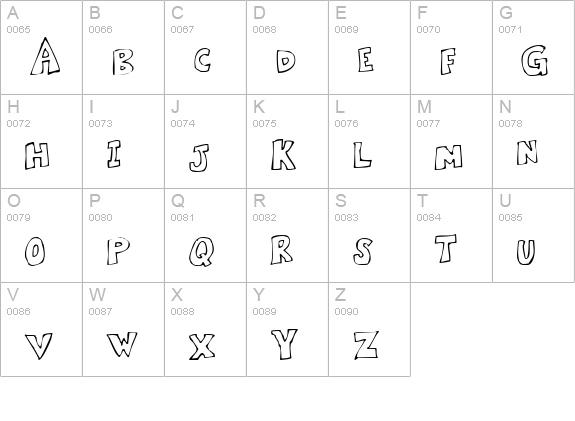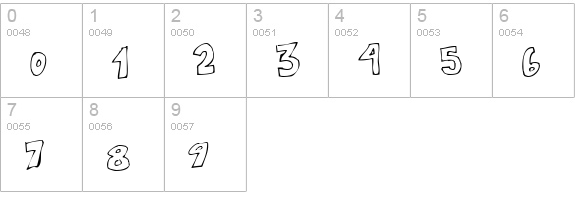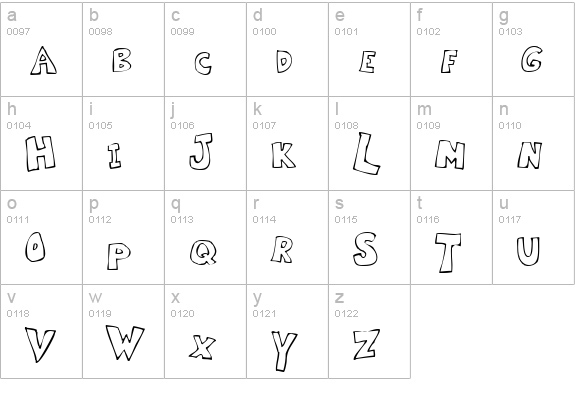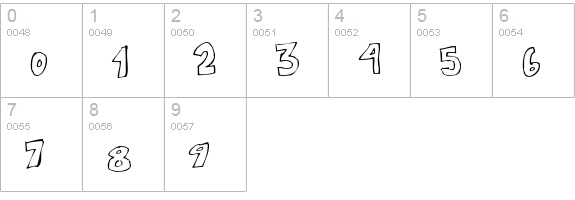
Kartoone Font Details
Kartoone font is a unique and playful typeface that brings a touch of whimsy to any design project. Its fun and quirky letterforms are sure to catch the eye and add a lighthearted element to your work. This font is perfect for creating eye-catching headlines, playful logos, and vibrant display text. Its bold and distinct style makes it stand out in both digital and print applications, making it a versatile choice for a variety of design projects. What makes Kartoone font even more appealing is that it is available for free. Yes, you read that right - this charming font can be downloaded at absolutely no cost from FontsMarket.com. So whether you're a professional designer on a tight budget or a hobbyist looking to add some personality to your personal projects, Kartoone font is the perfect choice. With its freely available download, Kartoone font offers accessibility and convenience to designers and creatives alike. Its wide range of glyphs and ligatures ensures that you have all the creative freedom you need to bring your vision to life. So why wait? Download Kartoone font today from FontsMarket.com and start adding a touch of whimsy and playfulness to your designs. Don't miss out on this fantastic opportunity to enhance your projects with this delightful typeface - completely free of charge.